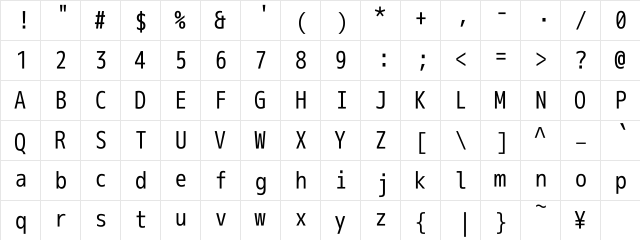
M+ 1m regular
Design Context for M+ 1m Typeface
M+ 1m is a composed and adaptable typeface that performs quietly and consistently across a wide range of design contexts.